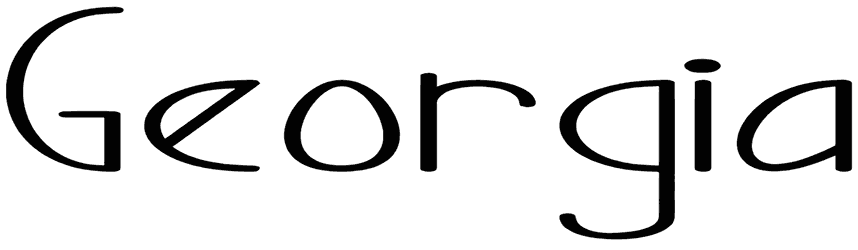
Georgia Font
If you want to add a personalized touch to your graphic content, including business cards, invitations, book covers, gift cards, or greeting cards, a timeless script font such as Georgia would help you to achieve your goal. This minimalist font is masterfully designed with a huge amount of precision and delicacy, thus conveying a sense of softness, dynamism, professionalism, or captivation.
Designed by: Aldedesign